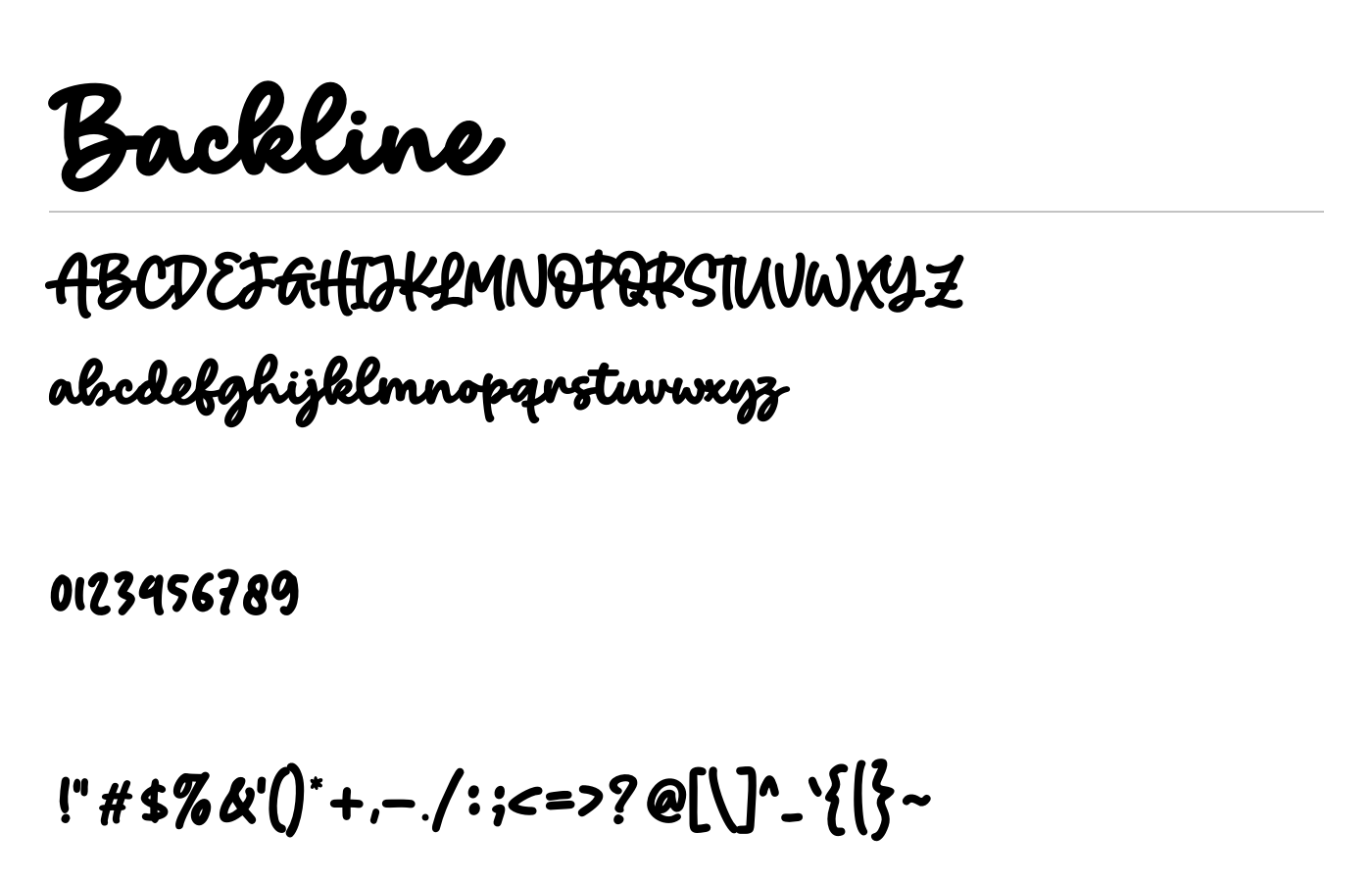
Backline is a lively and playful script font with a bold weight and rounded strokes that give it a friendly, hand-drawn feel. Its casual, connected letterforms and slightly uneven shapes make it perfect for creative and informal uses such as branding, packaging, or inviting headlines. This font works well when you want to add a personal, approachable touch that feels both modern and fun.
Backline Font
About Backline Font